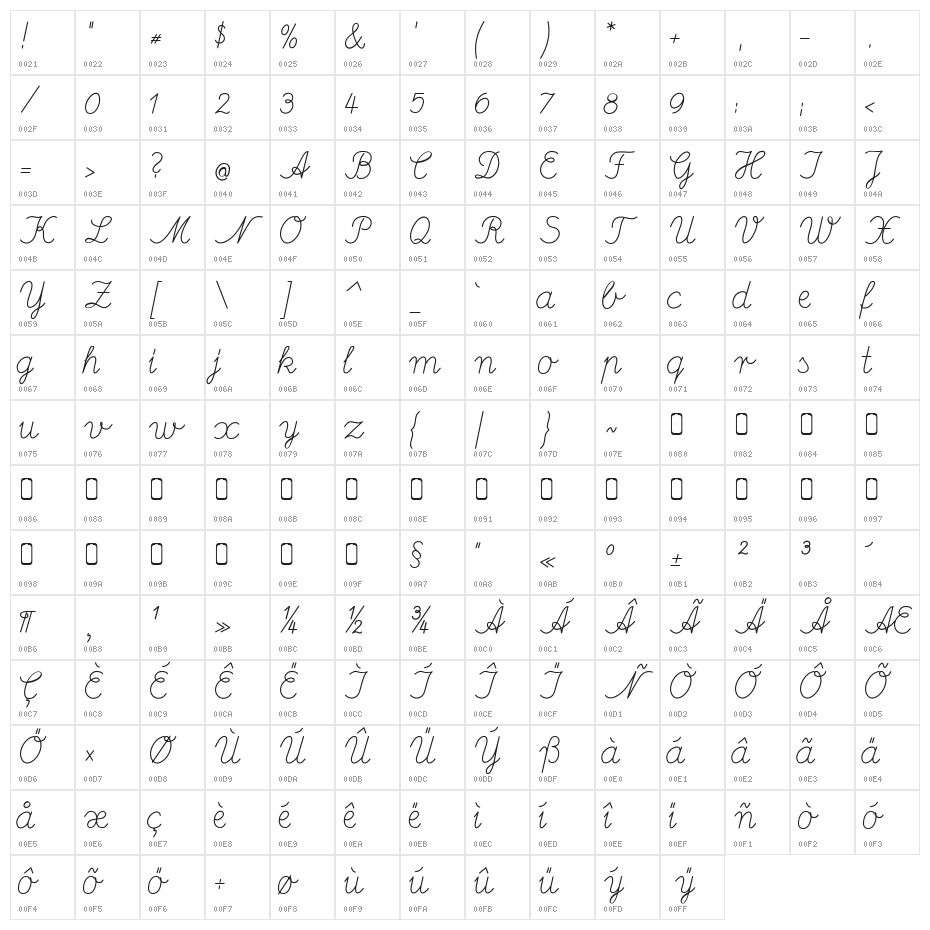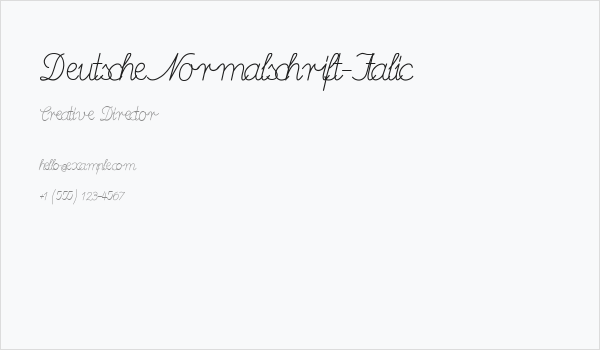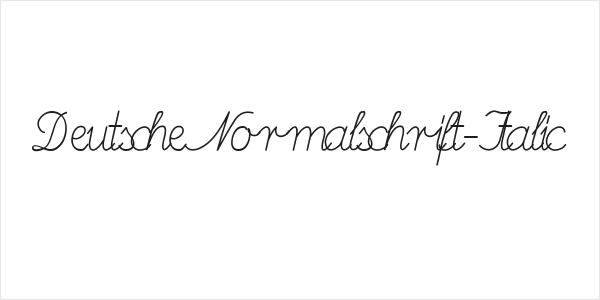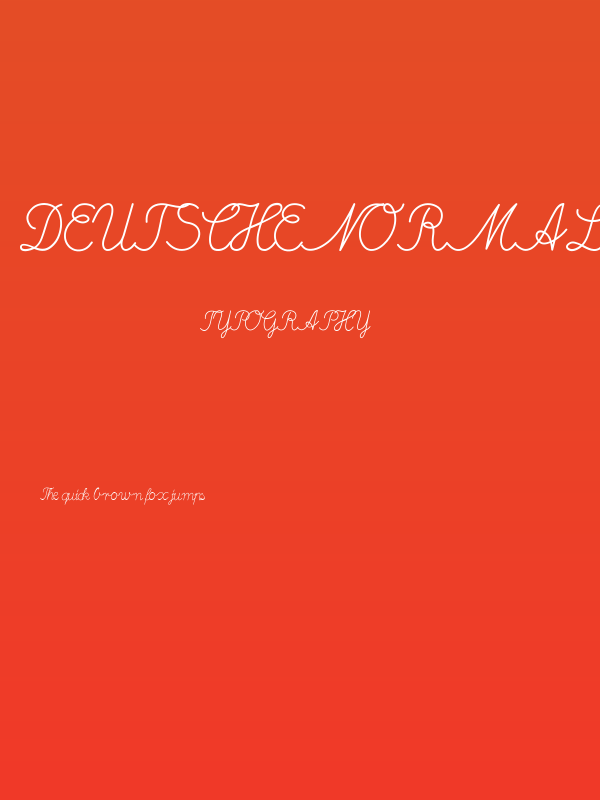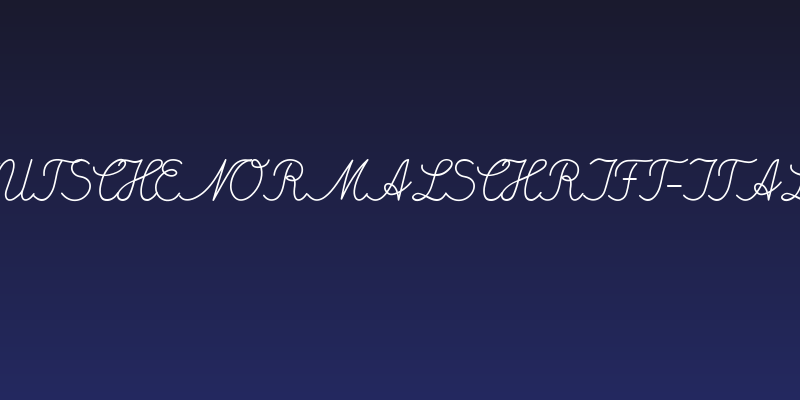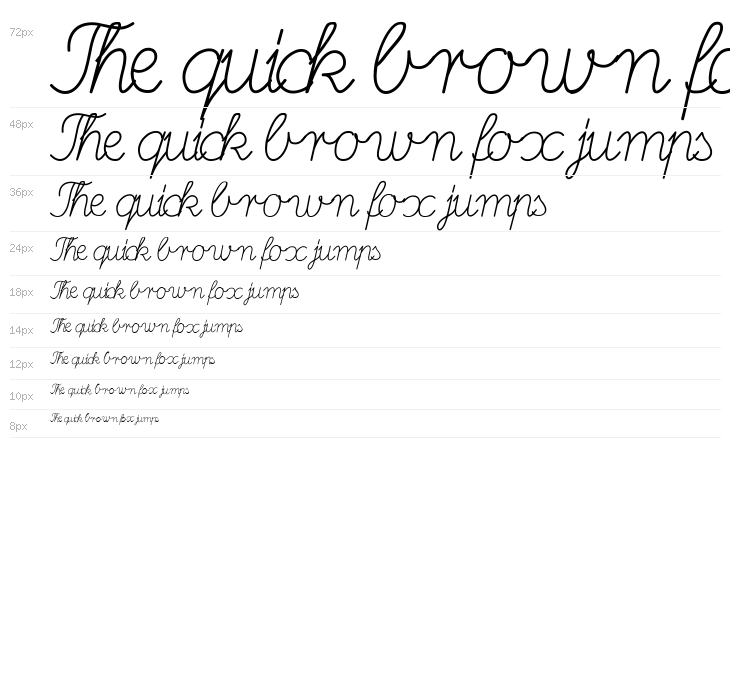
DeutscheNormalschrift-Italic Font
DeutscheNormalschrift-Italic Description
This elegant script font features a flowing, cursive style with a consistent slant, giving it a sophisticated and graceful appearance. The characters are connected, creating a seamless and fluid look that is both classic and stylish. The uppercase letters are slightly larger and more ornate, while the lowercase letters maintain a smooth and consistent form. The numerals and special characters are designed to match the overall cursive style, ensuring a cohesive appearance across all text. This font is perfect for projects that require a touch of elegance and refinement.